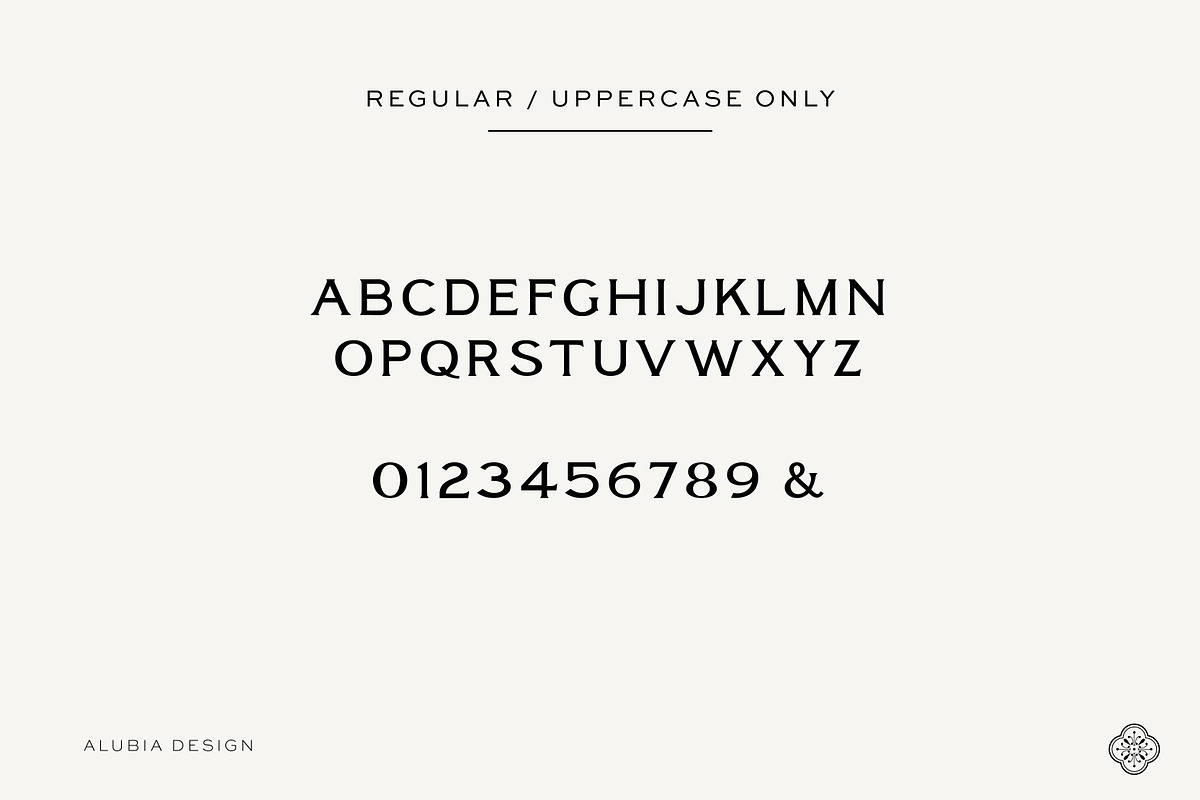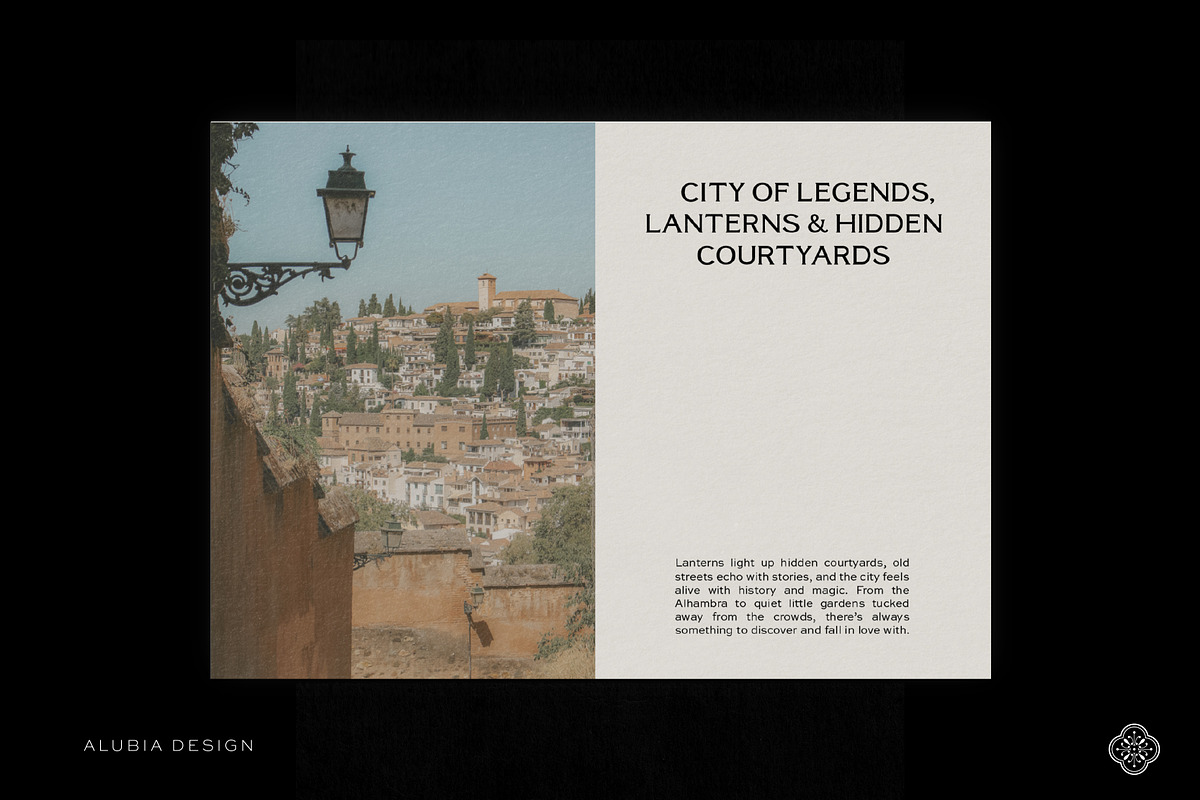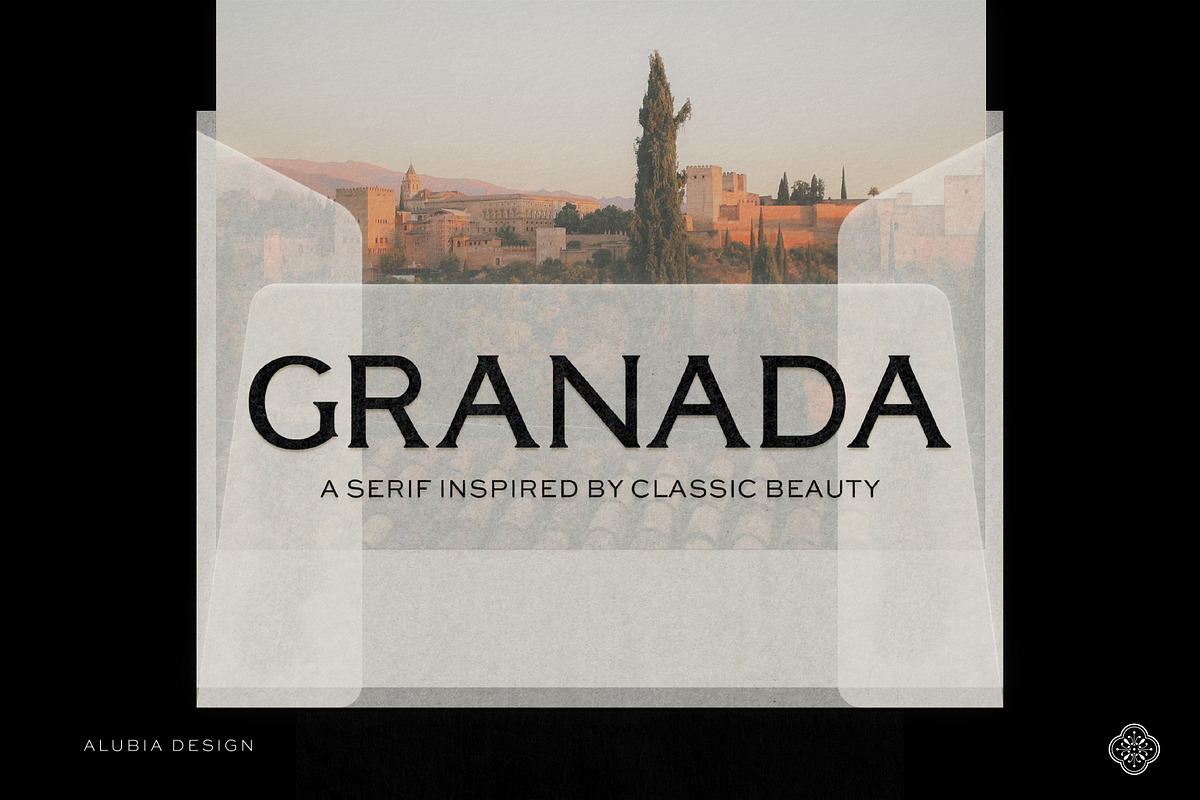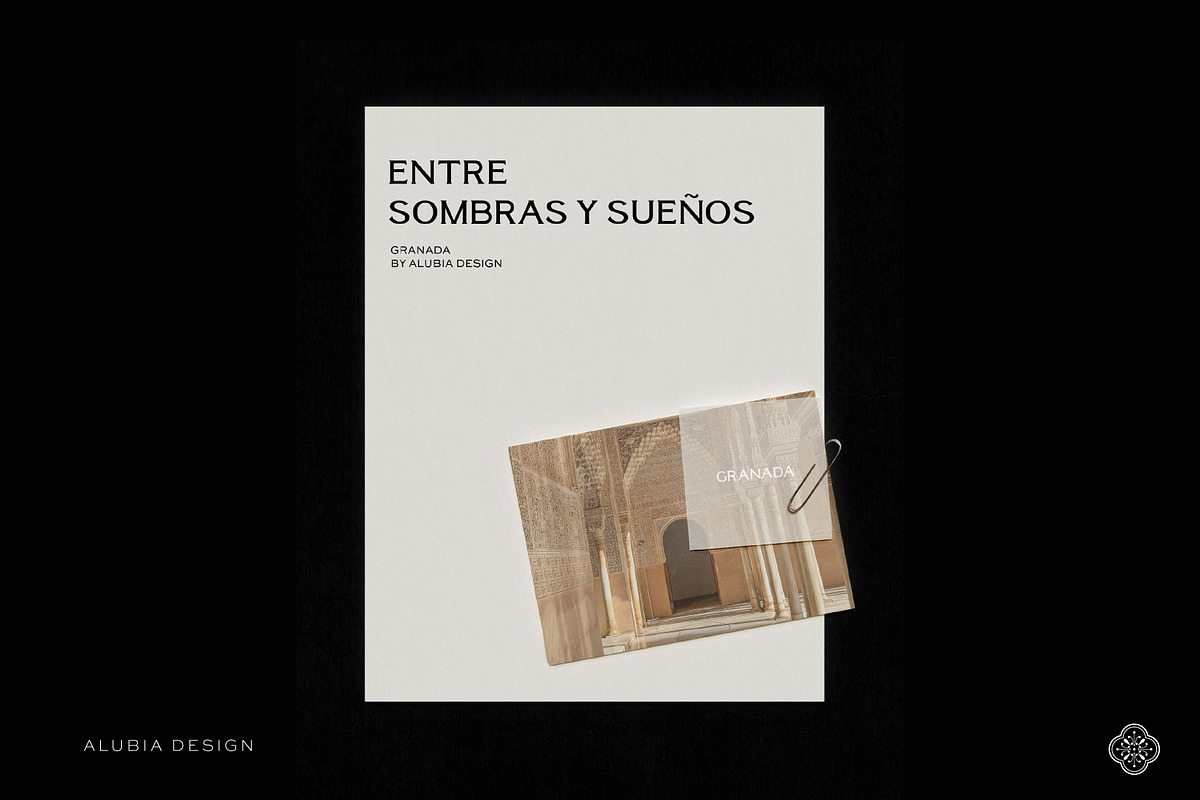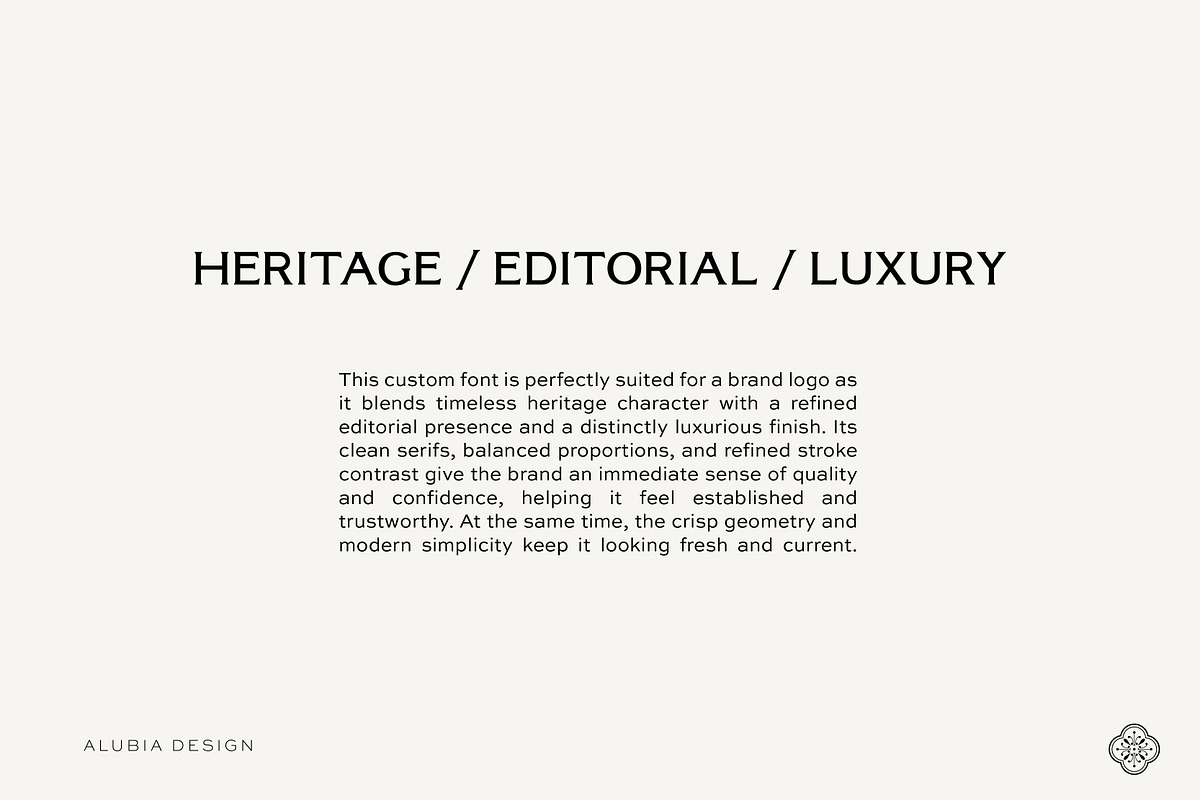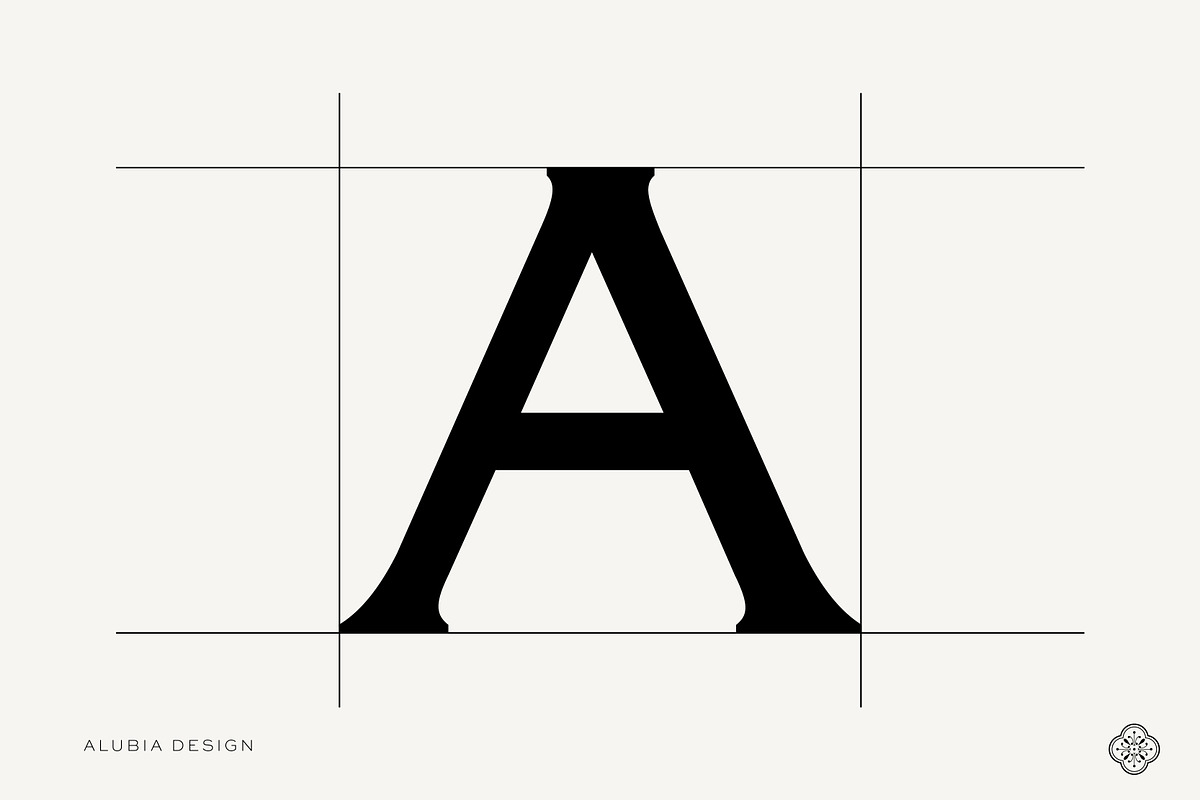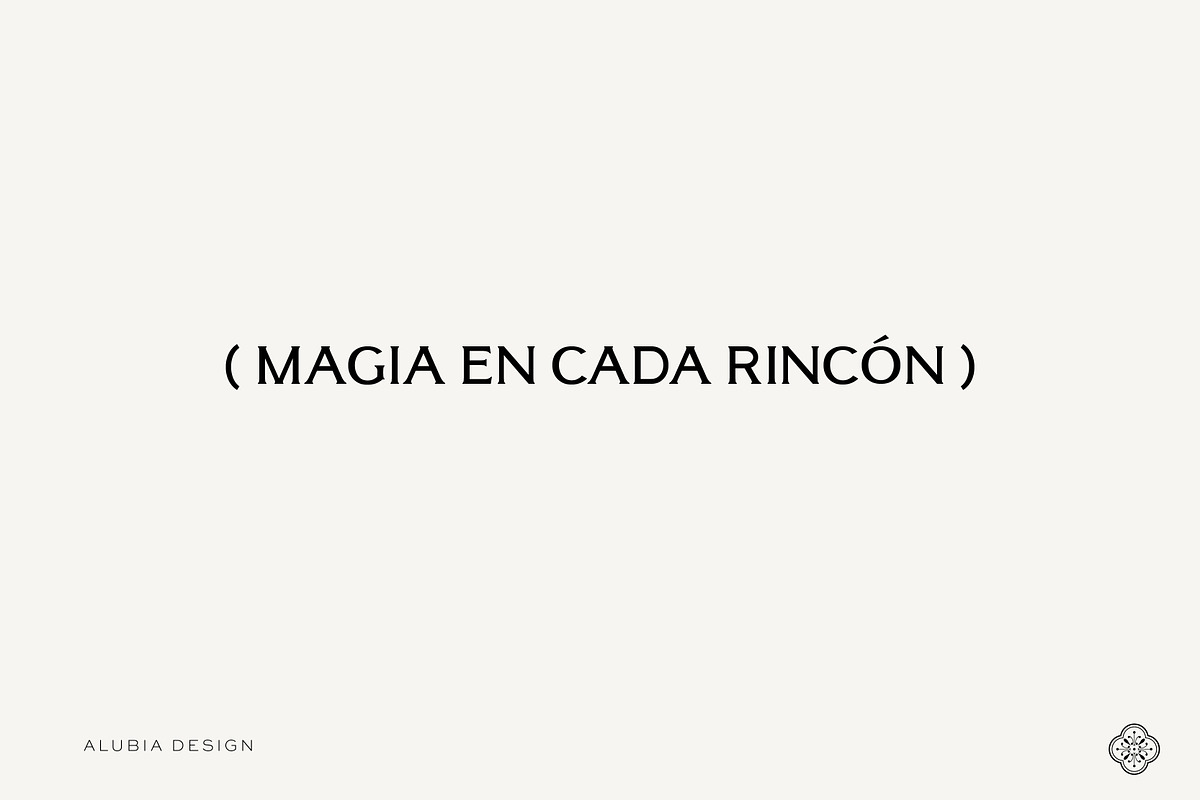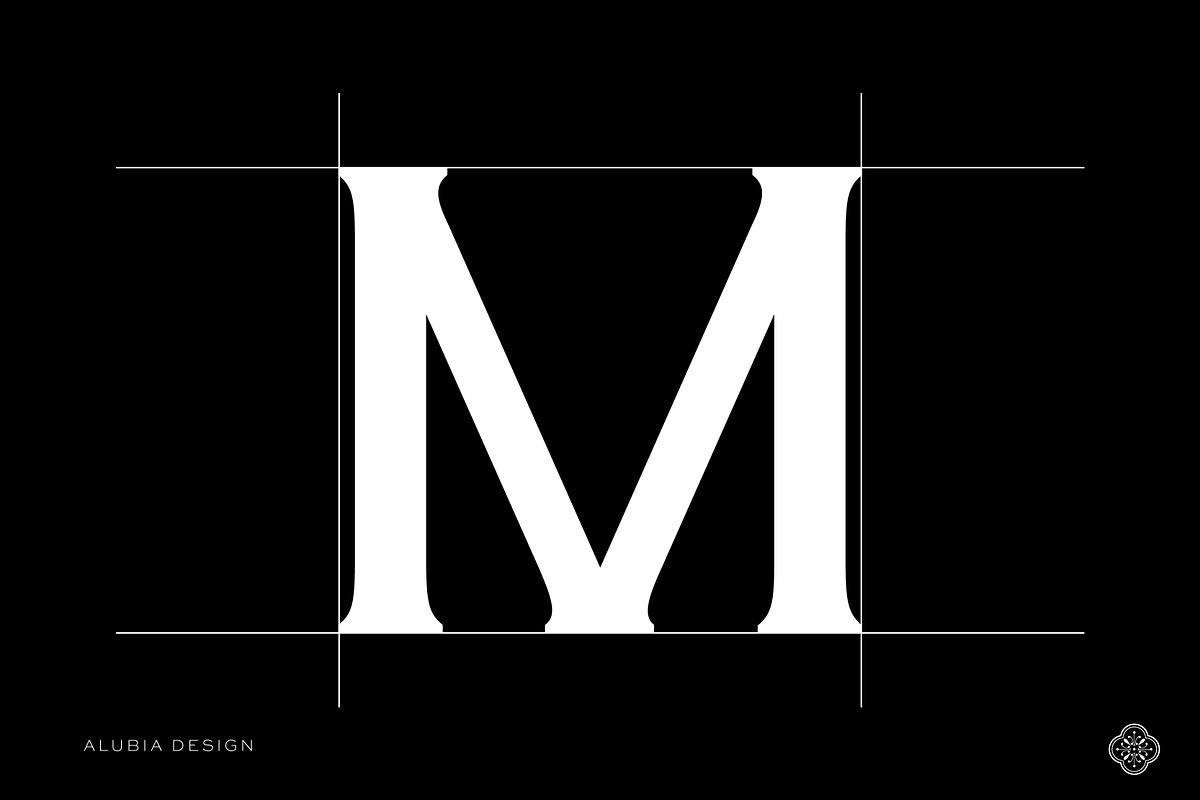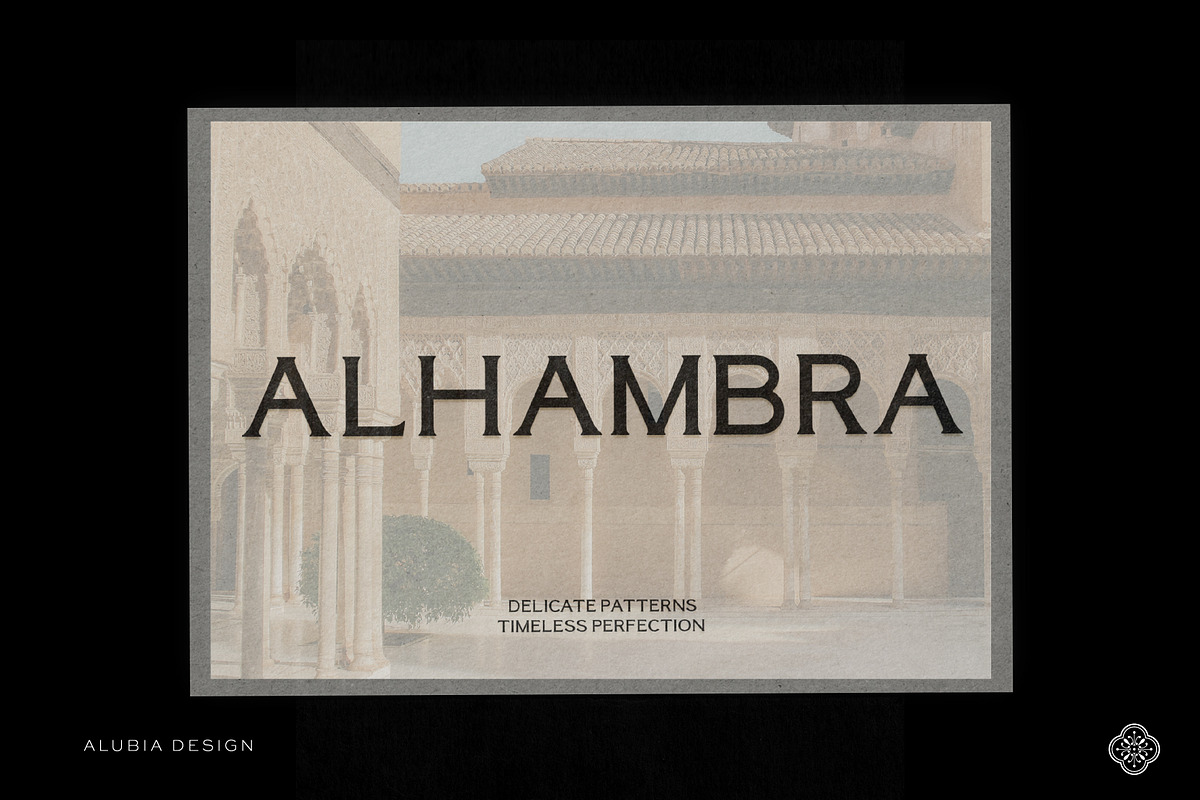
Granada - Editorial Serif
Introducing 'GRANADA' - an editorial typeface designed with contrast and subtle rhythm. It blends timeless heritage character with a refined editorial presence and a distinctly luxurious finish.
*Only UPPERCASE and REGULAR included (no lowercase, bold or italics)